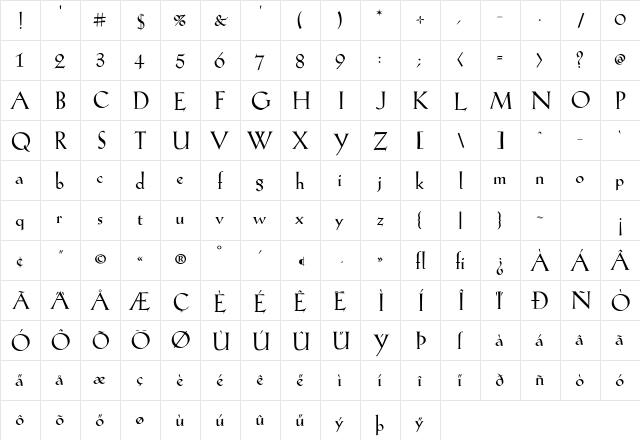
AIKochAntiqua-Demi Demi Font Preview
AIKochAntiqua-Demi Demi
AIKochAntiqua-Demi Demi Font Details
| Style | Demi |
Design Context for AIKochAntiqua-Demi Typeface
AIKochAntiqua-Demi takes a measured approach to typography — its balanced proportions and neutral character make it a reliable workhorse for both digital and print work.